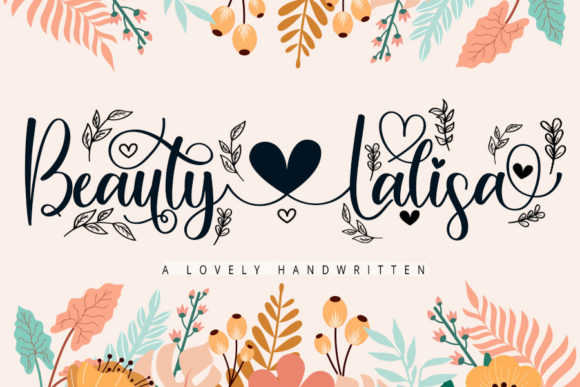
Introducing Beauty Lalisa Font: Elevate Your Designs with Elegance and Sophistication
In the world of typography, a beautiful font can make all the difference in transforming a design from ordinary to extraordinary. For designers and crafters seeking to add a touch of luxury and romance to their projects, the Beauty Lalisa Font is an exquisite choice. This stunning calligraphy typeface is designed to bring a sense of elegance and sophistication to any design, making it perfect for those who aim to create visually captivating and high-end visuals.
The Charm of Beauty Lalisa Font
Beauty Lalisa is a romantic and sweet calligraphy typeface that stands out for its unique characteristic: its characters dance along the baseline. This distinctive feature gives the font a lively and dynamic feel, making it perfect for designs that require a touch of whimsy and charm. Whether you’re working on a branding project, wedding invitations, or any other design that calls for a personal and luxurious touch, Beauty Lalisa Font is sure to impress.
Key Features of Beauty Lalisa Font
- Romantic and Sweet Calligraphy: Beauty Lalisa boasts a beautiful, flowing script that adds a touch of elegance to any project.
- Dancing Characters: The unique design where characters dance along the baseline gives the font a dynamic and playful feel.
- Luxury Spark: Perfect for designs that require a high-end look, Beauty Lalisa can elevate your project with its sophisticated style.
Applications of Beauty Lalisa Font
The versatility of Beauty Lalisa Font makes it suitable for a wide range of design projects. Here are some of the areas where this font truly shines:
- Wedding and Event Invitations: The romantic and elegant feel of the font makes it perfect for wedding invitations, save-the-date cards, and other event-related designs.
- Branding and Logo Design: For businesses that want to convey a sense of luxury, sophistication, and romance, Beauty Lalisa can be a great choice for their branding and logo design.
- Stationery and Packaging: Add a touch of elegance to your stationery, product packaging, or labels with this beautiful calligraphy font.
- Digital and Print Media: Whether it’s for a website, social media graphics, or print materials like brochures and flyers, Beauty Lalisa Font can enhance the visual appeal of your content.
Why Choose Beauty Lalisa Font?
With so many fonts available, why should Beauty Lalisa be your choice? Here are a few compelling reasons:
- Unique and Eye-Catching: The dancing characters and elegant flow of the font make it stand out from more traditional typefaces.
- Versatile: Its application is not limited to a specific type of design, making it a valuable addition to any designer’s font library.
- High-Quality: Crafted with attention to detail, Beauty Lalisa Font is a high-quality typeface that reflects professionalism and sophistication.
In conclusion, the Beauty Lalisa Font is a stunning calligraphy typeface that can add a touch of luxury, romance, and elegance to any design project. Its unique features, versatility, and ease of use make it an excellent choice for designers and crafters looking to create visually appealing and high-end designs. Whether you’re working on a branding project, wedding invitations, or any other design that requires a sophisticated look, Beauty Lalisa Font is sure to meet your needs and exceed your expectations.